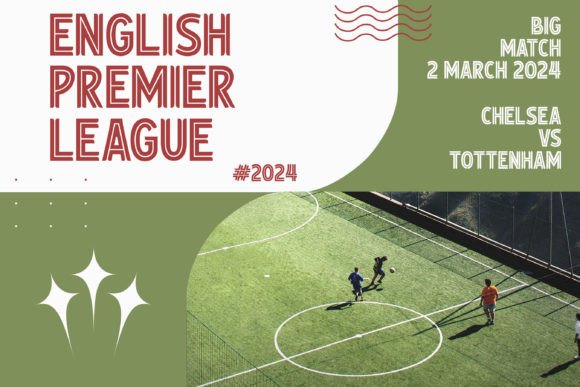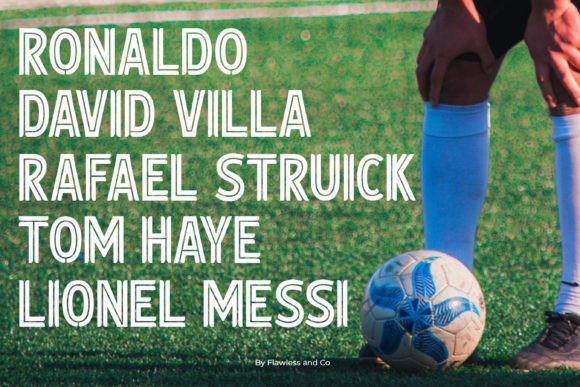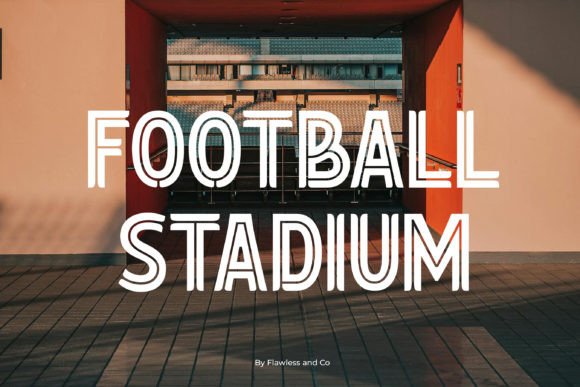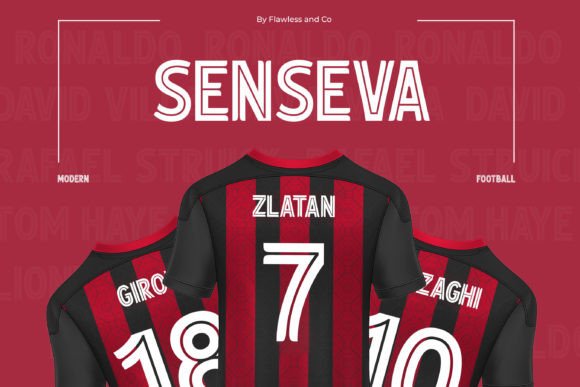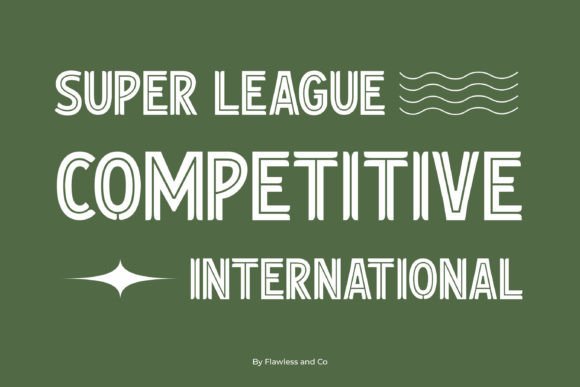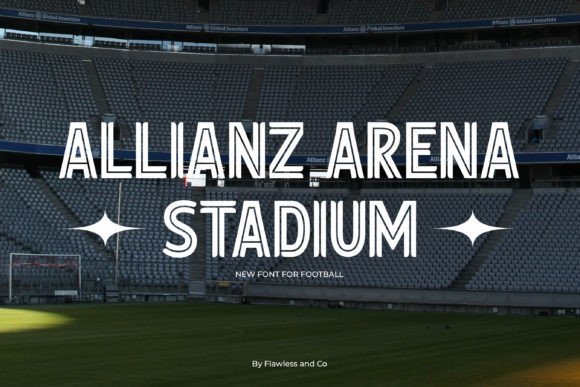
Introduction to Senseva Font
Have you ever felt that rush of excitement when your favorite football team scores a goal, and the stadium erupts in a frenzy of cheers and color? That’s the kind of energy and excitement that the Senseva Font is designed to capture.
As a designer working on a creative project, you’re always on the lookout for the perfect font to give your designs that extra oomph. Whether you’re creating a sports branding, team jerseys, posters, or anything in between, the Senseva Font is a valuable design resource that’s sure to elevate your work. With its bold and athletic letterforms, this high-quality font is perfect for designers who want to add a touch of dynamism to their designs.
Key Features of Senseva Font
- High-quality font with a unique, creative design perfect for various projects.
Honest Review: Senseva Font
As a designer, I’m always on the lookout for high-quality design resources to elevate my creative projects. Recently, I stumbled upon the Senseva Font, and I’m excited to share my honest review with you.
- ✨ Unique and modern design: The Senseva Font has a distinctive look that’s perfect for adding a touch of elegance to your designs.
- ⚠️ Limited character set: Unfortunately, the Senseva Font has a limited character set, which may not be suitable for more complex designs.
- ⚠️ Not ideal for body text: While the font is great for headings and titles, it may not be the best choice for body text due to its unique design.
Overall, I’m impressed with the Senseva Font’s unique design and versatility. While it may have some limitations, it’s a great resource for designers looking to add a touch of sophistication to their creative projects.
The Senseva Font is ideal for a wide range of design projects, including:
Tips for Getting the Most Out of Senseva Font
To get the most out of the Senseva Font, be sure to:
- Combine the Senseva Font with other design elements, such as images and graphics
- Use the font to create a consistent visual brand identity
Alternatives to Senseva Font
Montserrat Font is a high-quality sans-serif font perfect for modern creative projects that require a clean and minimalist design. It is available for free download with a transparent background, making it ideal for graphic designers who need a versatile design resource. Montserrat Font is a great alternative to Senseva Font as it offers a similar urban feel but with a more condensed and geometric appearance.
Open Sans Font is a popular and highly versatile sans-serif font that is ideal for a wide range of creative projects, from web design to print materials. It is available for free download and features a transparent background, making it a great design resource for designers. Open Sans Font is similar to Senseva Font in terms of its clean and modern design, but it offers a more neutral and approachable feel.